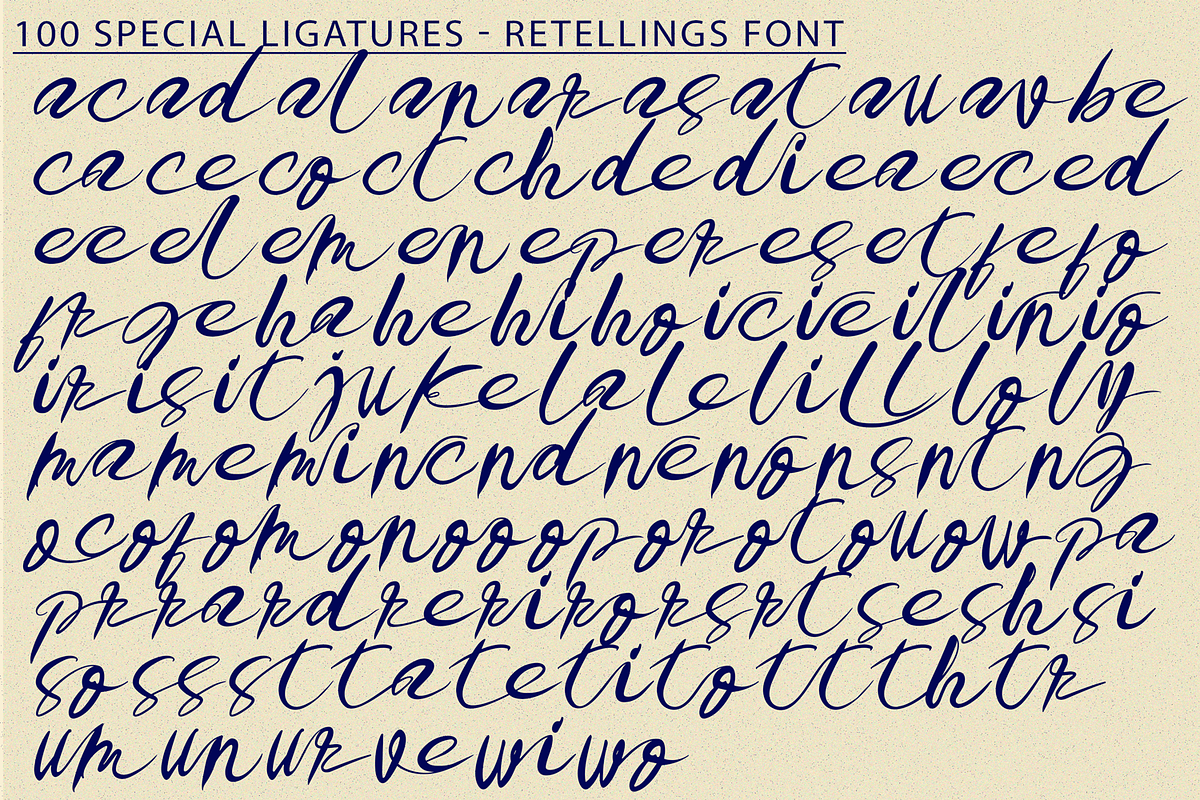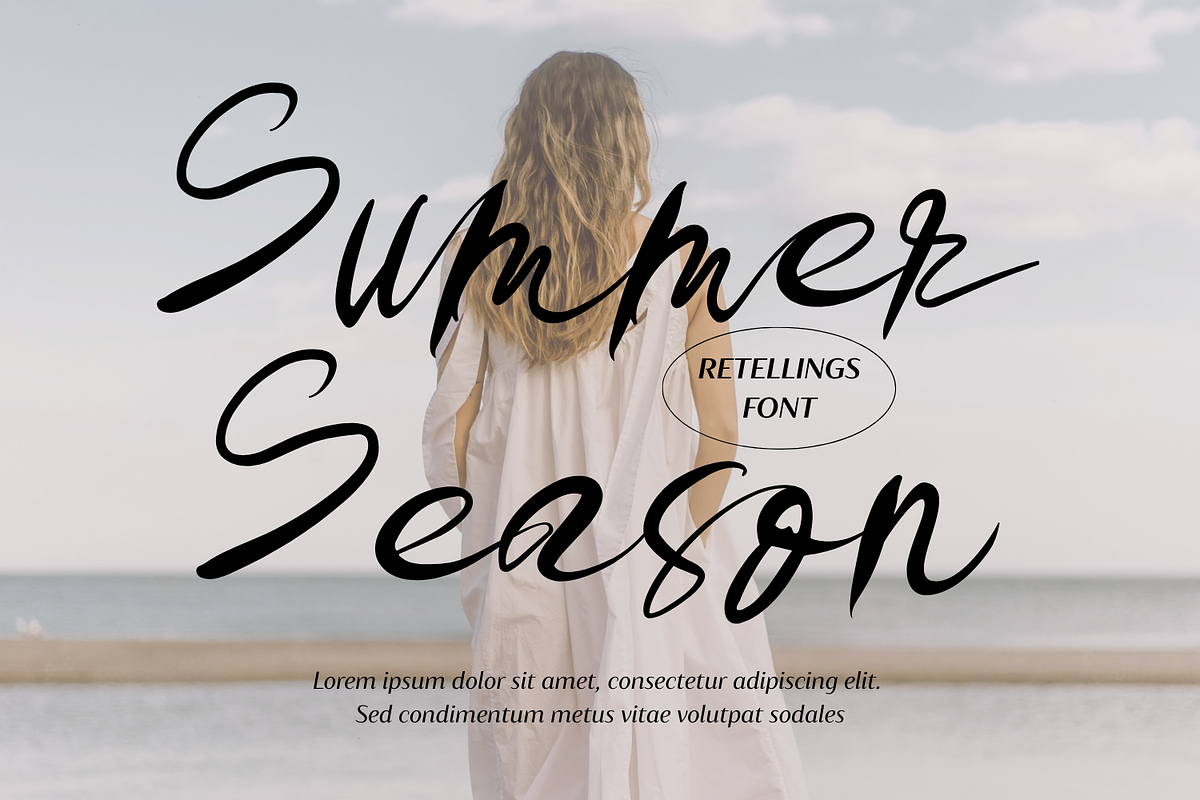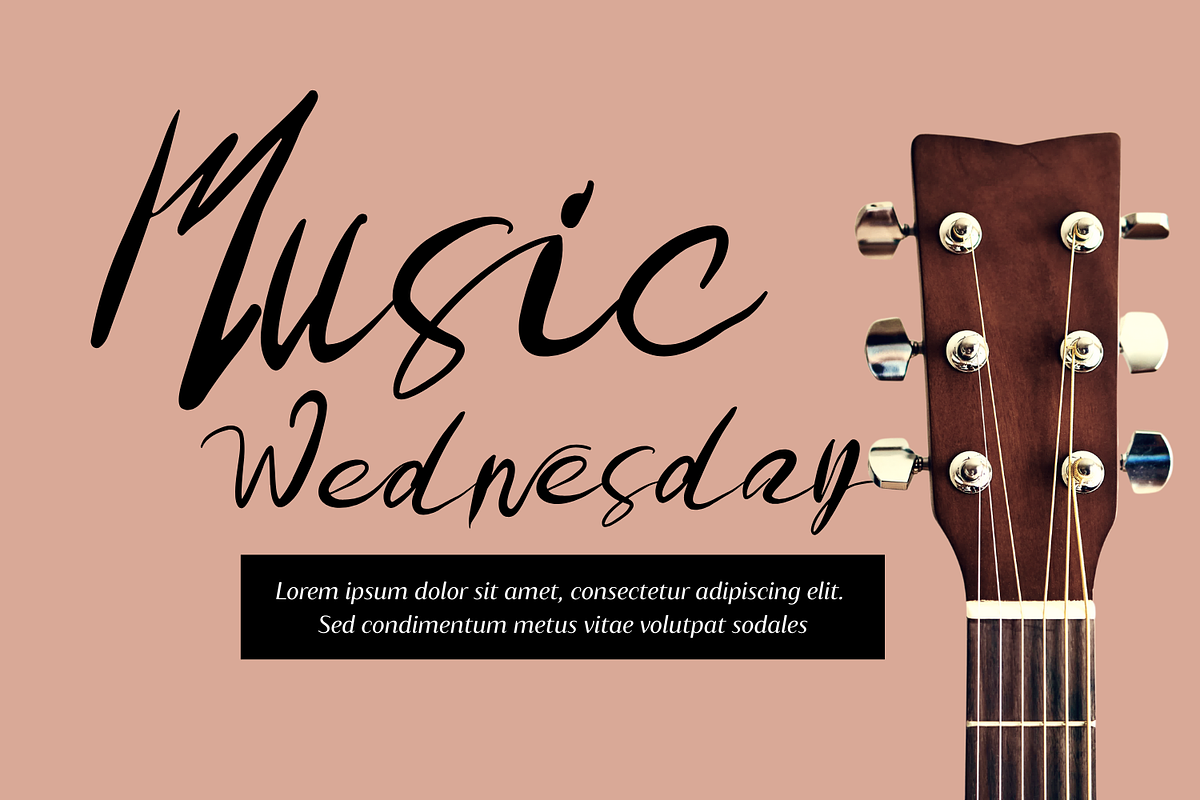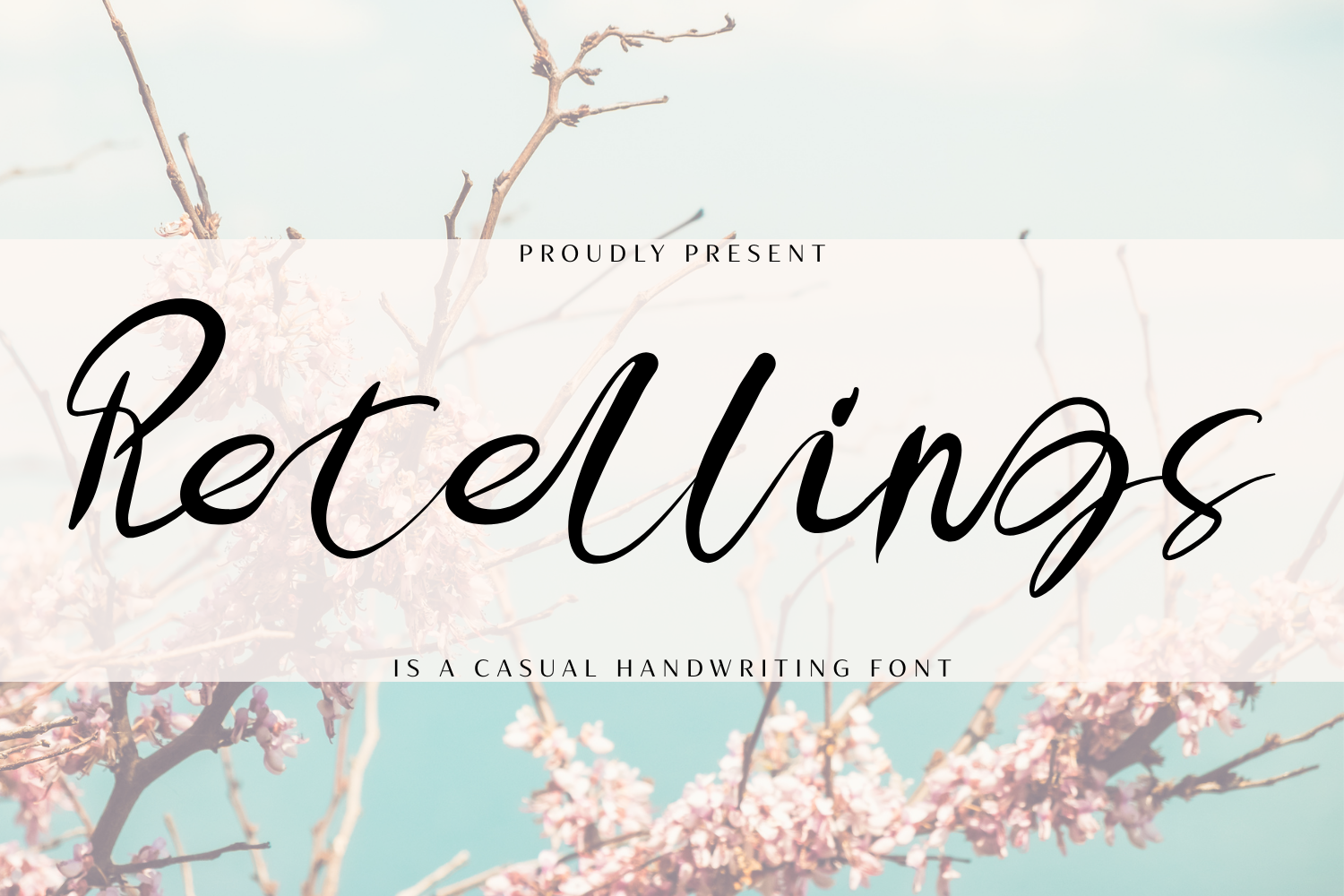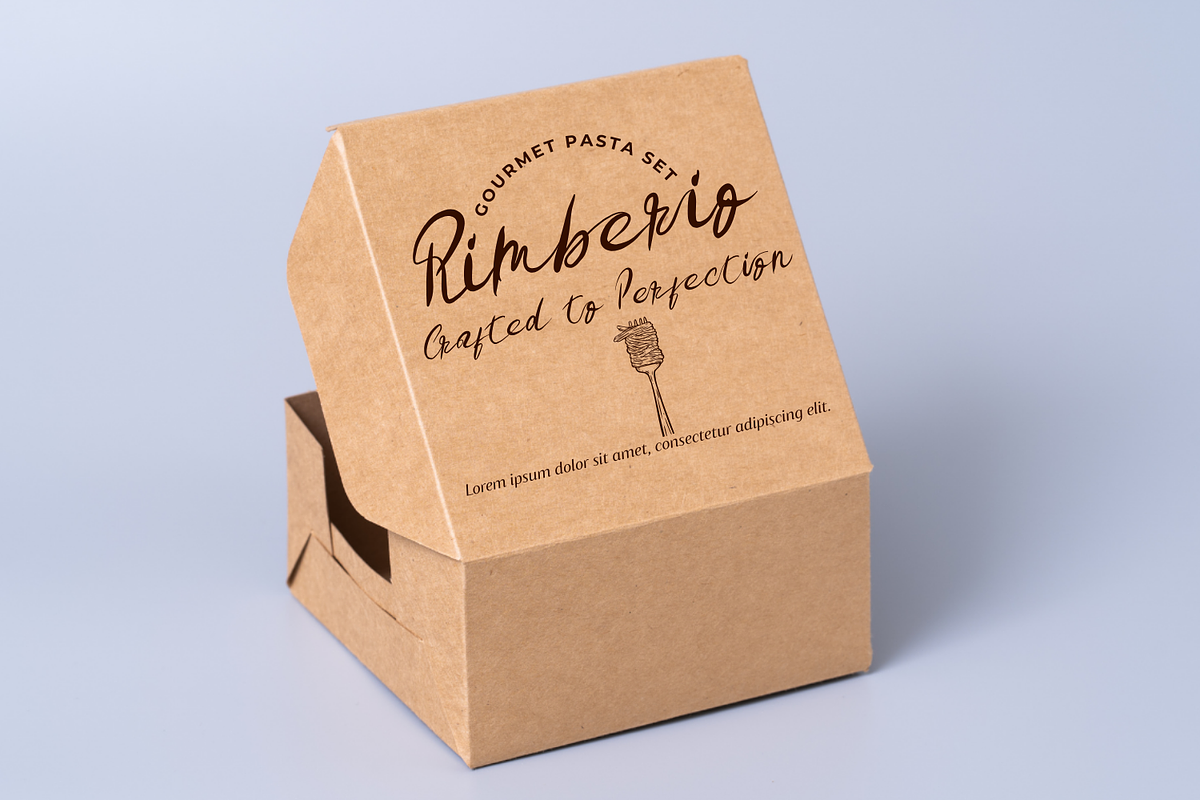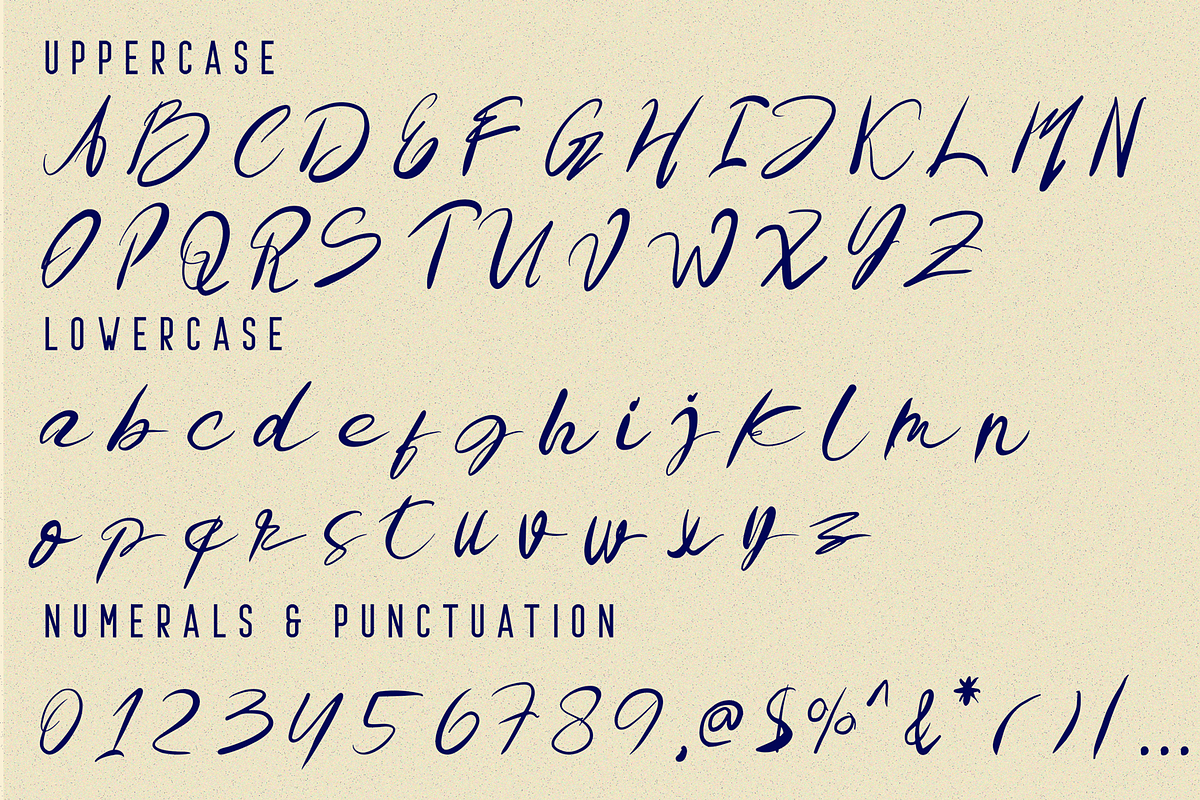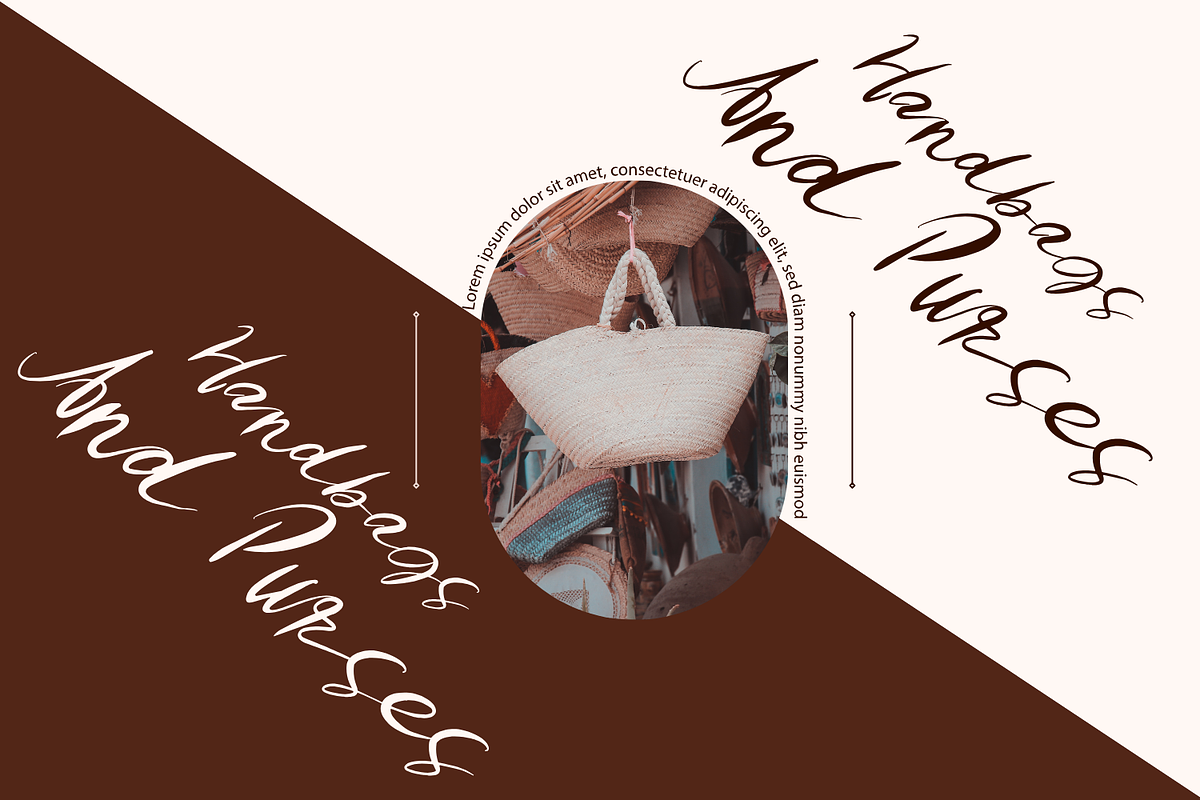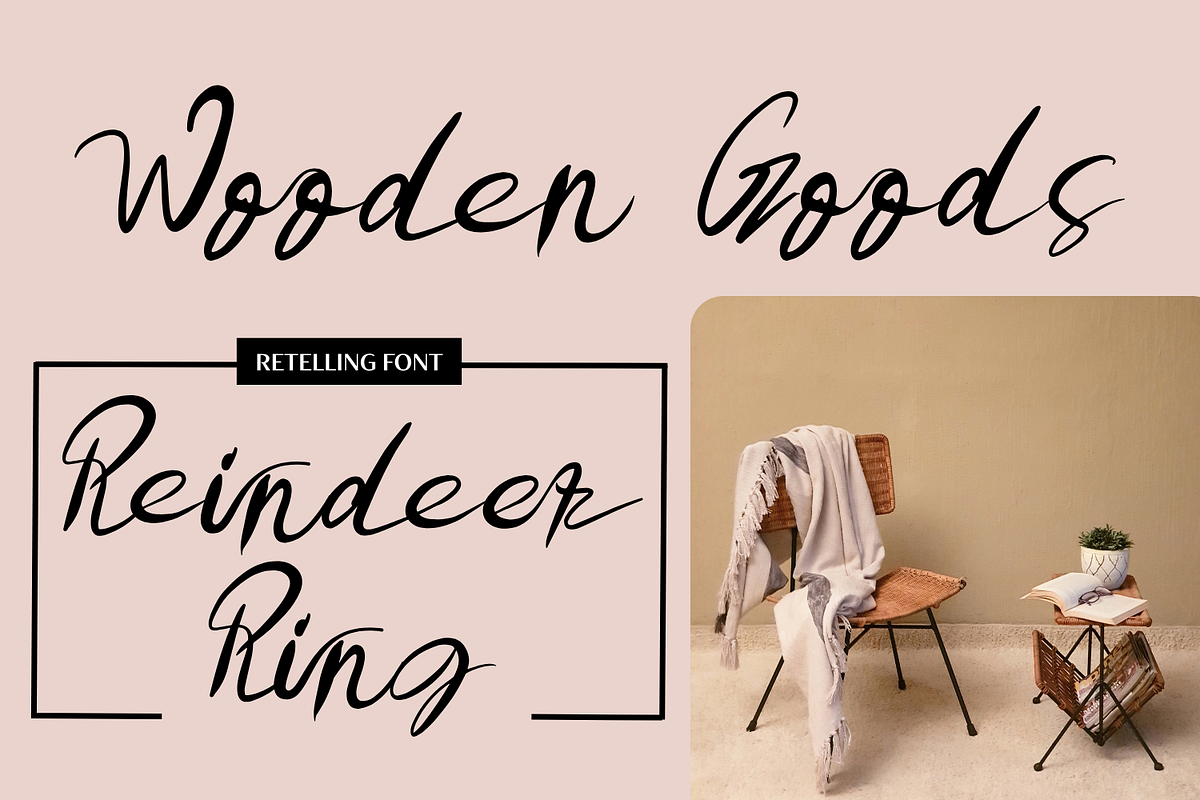
Retellings | Handwritten Font
Retellings Font – A Casual Handwritten Font, a beautifully crafted casual handwritten font designed to bring warmth and personality to your designs. With its smooth strokes, natural flow, and elegant curves, this font is perfect for wedding invitations, branding, packaging, greeting cards, and social media posts.
✔ Uppercase & Lowercase Letters
✔ 100+ Special Ligatures for fluid handwriting effects
✔ Numerals & Punctuation for full functionality
✔ Accented Characters for multilingual support
Whether you're working on a romantic, modern, or creative project, Retellings will add a personal and stylish touch to your typography.
About 100 ligatures combined with Stylistic Alternates Font:
ac ad al an ar as at au av be ca ce ch co ct de di ea ec ed ee el em en ep er es et fe fo fr ge ha he hi ho ie ic il in io ir is it ju ke la le li ll lo ly ma me mi nc nd ne ng no nt ns oc of om on oo op or ot ou ow pa pr ra rd re ri ro rs rt se sh si so ss st ta te th ti to tr tt um un ur ve wi wo